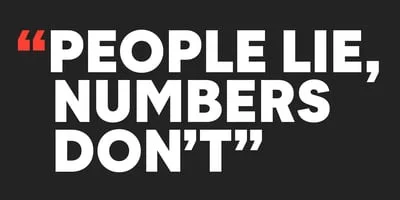
Majorant Font
Majorant Font is an exceptional choice for projects that demand a powerful, commanding, and distinctly impactful presence, often with a sense of authority or vintage industrial appeal. It's perfectly suited for bold headlines, robust branding, historical recreations, sturdy packaging design, and any application where you want your message to stand out with an unwavering sense of strength and character. Imagine it dominating the title of a documentary about industrial history, providing a formidable and authentic feel to a heritage brand's logo, or adding a strong, no-nonsense look to a craft product's label. Its solid construction and assertive forms ensure your message is conveyed with both gravitas and an undeniable sense of enduring reliability.
What makes Majorant Font so exciting is its ability to blend a timeless, almost monumental quality with a contemporary readability that makes it highly effective. It embodies a sense of stability and historical significance, making it ideal for projects that aim to feel both classic and powerfully present. This font isn't just about conveying text; it’s about making a definitive statement, adding a layer of unwavering conviction and robust artistic power to your visuals. It's the ideal tool for designers looking to infuse their work with a strong, uncompromising character and a memorable visual punch.
The Majorant Font family typically offers a range of weights and styles to provide robust design flexibility. You can expect to find options from a substantial Regular weight that embodies its core powerful design, through to a commanding Bold or even Ultra weight for maximum impact. Some families might also include condensed or expanded versions to further enhance its versatility in various display contexts. These variations ensure that Majorant Font can be the cornerstone of a truly unique and powerfully thematic visual identity, helping your designs stand out with an undeniable sense of character and unyielding force.